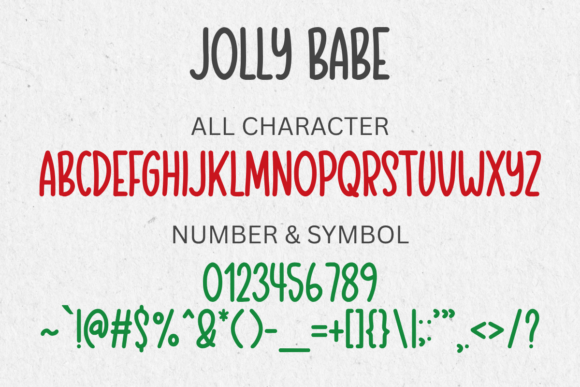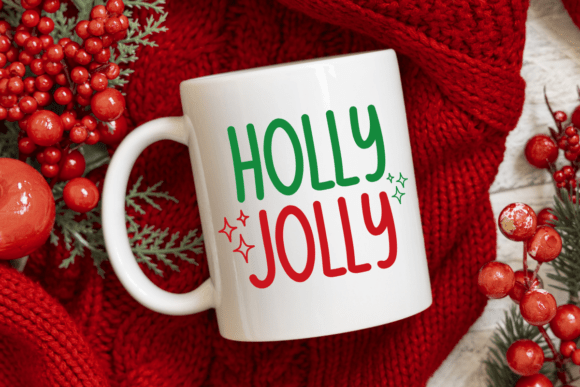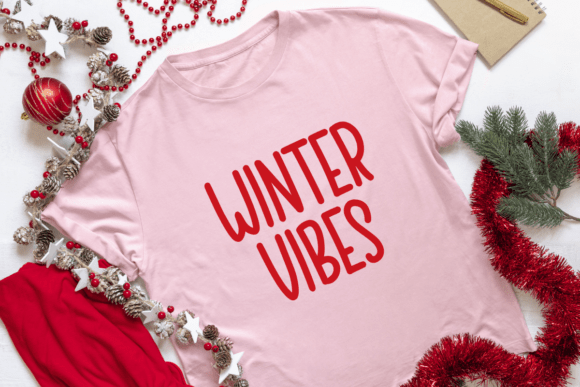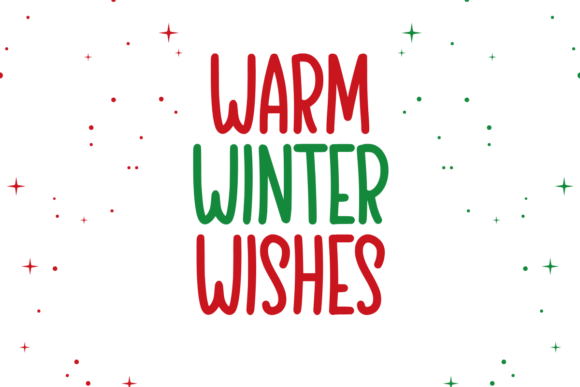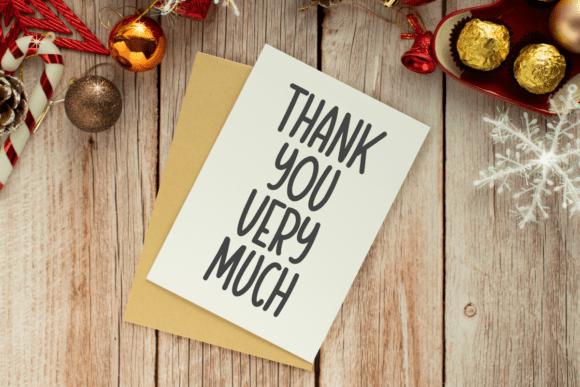
Introduction to Jolly Babe Font
Do you remember the moment when you stumbled upon the perfect font that made your design project pop? For many of us, that moment is a game-changer. It’s the difference between a good design and a great one. And, for those who love creating adorable and playful designs, the Jolly Babe Font is sure to be a revelation.
This high-quality sans serif handwriting font is a design resource that exudes warmth and friendliness. With its soft, natural look and feel, it’s perfect for craft projects, planners, stickers, and DIY designs. Whether you’re a crafting mom, a graphic designer, or a stationery enthusiast, the Jolly Babe Font is a valuable addition to your design toolkit.
Key Features of Jolly Babe Font
- High-quality design resource ideal for creative projects, offering a unique and playful aesthetic.
- Transparent background, allowing for seamless integration with various design elements.
- Features a large character set, including uppercase and lowercase letters, numbers, and punctuation marks, making it suitable for a wide range of applications.
- Designed with a bold and whimsical style, perfect for adding a touch of personality to creative projects, such as children’s books, greeting cards, and more.
Honest Review: Jolly Babe Font
I recently had the chance to work with the Jolly Babe Font, and I must say it’s a great addition to any design resource collection. This high-quality font is perfect for creative projects where you need a playful touch.
- Not suitable for formal or professional projects
- Some characters may not be compatible with certain fonts
Overall, the Jolly Babe Font is a great design resource that’s perfect for designers who need a fun and playful touch in their creative projects. While it has some limitations, it’s a great addition to any design collection.
Tips for Getting the Most Out of the Jolly Babe Font
Use the Jolly Babe Font in combination with other design elements to create a unique and eye-catching design. Experiment with different font sizes, colors, and layouts to find the perfect look for your creative project.